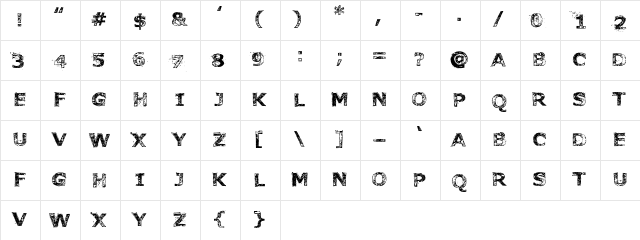
Font to a Chainsaw Regular
| Foundry | Font Monger & Chris Vile Fonts |
| Designer | Chris Vile |
Design Context for Font to a Chainsaw Typeface
Font to a Chainsaw is a composed and adaptable typeface that performs quietly and consistently across a wide range of design contexts.